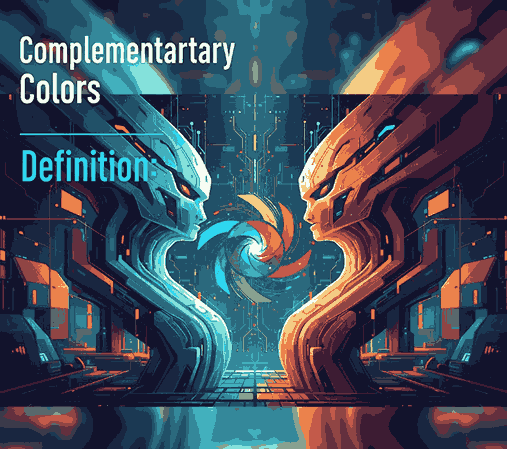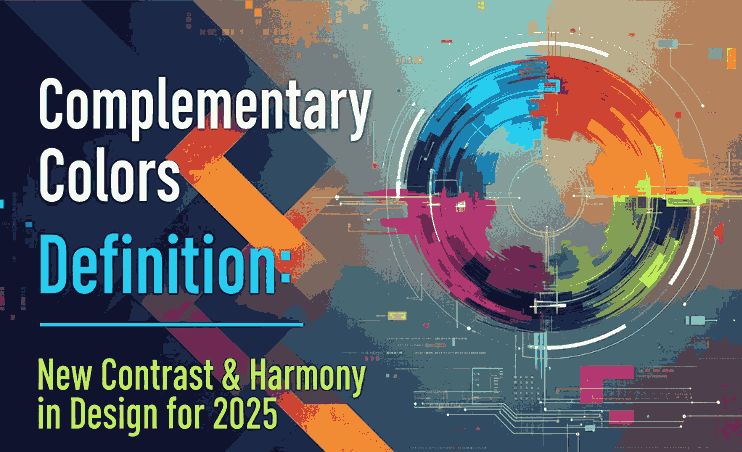
Brand Color Personality: How Colors Shape Your New Brand Identity
1. Introduction: Why Color Isn’t Just Decoration
You’ve probably heard that “colors speak louder than words.” In branding, that’s more than a cliché—it’s a strategic truth. The colors you choose for your brand become a nonverbal language, signaling who you are and what you stand for to your audience. This is at the heart of brand color personality.
For a font business like yours, where visual identity is core, aligning your brand’s personality with color helps your fonts “feel right” in context, attract the right customers, and create stronger brand recall.
2. What Is Brand Color Personality?
Brand color personality refers to the emotional, psychological, and associative traits that a brand’s color palette communicates to the audience. It’s how colors express the “character” of a brand—whether it feels energetic, trustworthy, youthful, sophisticated, earthy, or whimsical.
It is grounded in color psychology, which studies how color influences human emotion, behavior, and perception. In branding, color is a powerful cue—studies show that up to 90% of first impressions can be formed based on color alone.
So choosing colors isn’t just aesthetic; it’s a strategic decision in aligning visual identity with brand values and messaging.
Brand Color Personality
3. How Colors Influence Consumer Perception
Colors influence perception in several interlocking ways:
• Emotional associations: People often unconsciously connect colors with feelings (e.g. blue = calm/trust, red = energy/passion).
• Cultural & contextual meaning: Interpretations of colors differ across cultures, industries, and usage context.
• Recognition & recall: A consistent color palette builds memory linkage—customers start to associate that hue set with your brand.
• Decision-making & behavior: Colors can influence what people pay attention to or how they perceive brand attributes like trust, sophistication, energy, or friendliness.
In short: your color choices help shape how your brand is felt and judged at a glance.
4. Key Color–Personality Associations
While these associations are not universal, here are commonly recognized linkages in branding:
• Blue → Trust, stability, professionalism
• Green → Nature, growth, harmony
• Red → Excitement, urgency, passion
• Yellow / Gold → Optimism, warmth
• Orange → Creativity, friendliness
• Purple → Luxury, imagination, spirituality
• Black / Dark Neutrals → Elegance, sophistication
• White / Light Neutrals → Simplicity, purity
Brands often pair a primary color with neutrals or accent colors to modulate their personality. (E.g. a tech brand might pair blue + gray + neon accent.)
A useful note: color psychology is nuanced and mediated by context, culture, and individual experience. No color guarantees one emotion.
5. Choosing a Your Brand Color Personality
Here’s a framework you can follow:
1. Define your brand values, tone, and target audience
What do you want people to feel when they see your brand? Bold? Warm? Premium? Creative?
2. Map traits to colors
Pick color(s) that best echo those traits. If your brand is “creative + grounded,” you might lean earthy greens + warm neutrals + one accent.
3. Test harmony & contrast
Ensure your palette is usable—text legibility, contrast, color combinations must work in practical use.
4. Consider accent colors
Use accent hues to introduce nuance, highlight, or signal interactive states.
5. Stay consistent
Apply your color personality across all brand assets—logo, website, social media, mockups, packaging.
6. Be flexible to context
Use variations or secondary palettes when needed, but keep primary identity stable.
By anchoring your color decisions in personality and consistency, you build stronger visual identity.
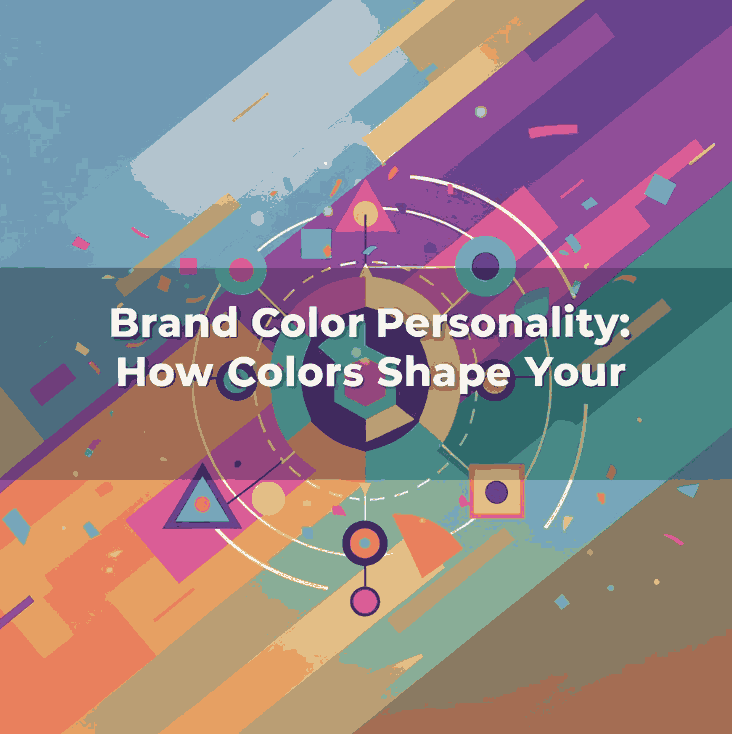
6. Applying Brand Color Personality in Typography & Fonts
As a font designer/seller, your color personality should reflect (or harmonize with) your font style. Here’s how:
• Font sample previews: Display your fonts on backgrounds that reflect your brand’s personality. Use your primary hue in a way that makes the font pop.
• Mockup contexts: If your brand is rugged or bold, use earthy, textured palettes. If elegant or luxury, use dark neutrals or muted tones with accent highlights.
• Font pairing examples: Show how two fonts work together with your brand palette—one in primary color, one in secondary.
• Highlighting special glyphs or alternates: Use accent colors to draw attention to ligatures, alternates, or stylistic sets in demo visuals.
Your font visuals become not just product previews, but expressions of your brand’s color personality.
7. Font Mockup Examples from Your Collection
Here are some fonts in your catalog and how you might incorporate brand color personality in their mockups:
• Rustte Font — Use warm rust, burnt orange, deep brown or olive tones to emphasize the rugged, expressive character of the font.
• Holdsmith — Pair dark neutral or charcoal backgrounds with a bold accent (e.g. muted gold) to present a dignified and timeless personality.
• Jungle Tribe Font — Use natural greens, earthy browns, and subtle accent colors (like warm ochre) to evoke jungle or organic brand themes.
• Charima Sharene Font — Elegant, script‐style font might be showcased over soft pastels or muted jewel tones with metallic accents for a more premium aesthetic.
Make sure your mockups align visually with the personality your brand wants to communicate—don’t just randomly use colors.
8. Pitfalls & Cultural Considerations
• Overgeneralizing color meaning: Color associations differ across cultures and individuals. What is soothing in one region may feel dull in another.
• Ignoring contrast & legibility: Even the best palette fails if text is unreadable.
• Trend chasing: Don’t change color personality too often just to follow trends; consistency builds recognition.
• Clashing personalities: Be careful with secondary or accent hues—they shouldn’t muddy your core identity.
• Assuming universal responses: Personal and cultural differences mediate how color is perceived.
Always test your color choices with your target audience.
9. Tips to Test & Validate Your Brand Color Personality
• A/B testing: Present variations of mockups to small audience and see which palette gets better response.
• Surveys / Feedback: Ask people what emotions or traits they perceive from your color choices.
• Brand persona tests: Show your brand visuals (with colors) and ask participants to pick adjectives (e.g. “trusted,” “creative,” “bold”).
• Contrast & accessibility tools: Use contrast checkers to ensure color combinations comply with readability standards.
• Longitudinal consistency: Evaluate if the palette still feels appropriate as your brand grows or evolves across media.
Validation is key—color personality isn’t just what you like; it’s how your audience receives it.
10. Conclusion & Call to Action
Your brand color personality is a powerful tool: it communicates unspoken values, shapes emotional perception, and gives your brand a visual voice. For a font business, strong alignment between the style of your typefaces and your brand’s color persona is a competitive edge.
Next step: Choose one or two adjectives (e.g. “bold & grounded,” “elegant & creative”) and build a minimal palette (primary + accent + neutrals). Apply that palette across one font mockup and test audience reaction.
References
• HubSpot — “Color Psychology: How To Use it in Marketing and Branding”
• HelpScout — “Color Psychology in Marketing & Branding: Will It Always Work?”
• BrandVM — “Brand Color Psychology: How Hues Influence Emotions and Behavior”
• Insights in Marketing — “The Power of Color in Branding and Marketing”
Posted on
Analogous Colors Definition & How to Use Them in New Design
Analogous Colors Definition
Table of Contents
1. Introduction
2. What Is the Analogous Colors Definition?
3. Why Analogous Schemes Create Visual Harmony
4. Common Analogous Color Combinations & Examples
5. Best Practices: Using Analogous Colors in Design
6. Applying Analogous Palettes in Typography & Mockups
7. Font Mockup Examples from Your Collection
8. Tools & Tips to Create & Test Analogous Palettes
9. Pitfalls to Avoid
10. Conclusion & Next Steps
11. References
1. Introduction
Color is one of the foundational building blocks of design. How you pick and combine hues determines mood, readability, cohesion, and emotional impact. Among the many color harmony techniques, Analogous Colors Definition schemes stand out for their subtle beauty and natural feel.
In this article, we’ll explore the Analogous Colors Definition, show you examples, and reveal how to use them effectively—especially in your font mockups, branding visuals, and creative assets.
2. What Is the Analogous Colors Definition?
The analogous colors definition refers to a set of colors that are adjacent to each other on the color wheel. In most applications, an analogous scheme consists of three hues: a base (dominant) color, and one or two supporting (neighbor) colors.
These neighboring hues share similar undertones, which gives analogous palettes a smooth, harmonious, and unified appearance—unlike complementary schemes, which emphasize high contrast.
For example:
• Blue, blue-green, and green
• Red, red-orange, and orange
• Yellow, yellow-green, and green
In digital design, you can tweak saturation, brightness, or tone of these colors to achieve more depth and contrast.
Analogous Colors Definition
3. Why Analogous Schemes Create Visual Harmony
Analogous color schemes are praised for several reasons:
• Low visual tension: Because the colors are similar in hue, they don’t “fight” each other. This makes them soothing to the eye.
• Natural occurrences: You often see analogous schemes in nature (sunsets, foliage gradients), which makes them feel organic.
• Cohesion & unity: They produce a unified look—great for backgrounds, branding, or layouts that shouldn’t feel busy.
• Flexibility with contrast: Even though they are close in hue, you can achieve contrast by varying brightness, saturation, or applying neutrals (white, gray, black).
Because analogous schemes are more subtle than contrasting ones, they are often chosen when the goal is elegance, calmness, or aesthetic continuity.
4. Common Analogous Color Combinations & Examples
Here are typical triads of analogous hues you can experiment with:
• Red → Red-Orange → Orange
• Yellow → Yellow-Green → Green
• Blue → Blue-Green → Green
• Blue → Blue-Violet → Violet
• Purple → Red-Violet → Red
Some designers extend schemes to 4 or 5 hues (neighboring spanning a small arc) as long as they remain adjacent without jumping across the wheel edges.
In interior design, for example, designers often use the 60 / 30 / 10 rule: 60% dominant color, 30% secondary analogous color, and 10% accent (which can be a more muted version).
5. Best Practices: Using Analogous Colors Definition in Design
To make analogous palettes work well, follow these tips:
• Choose a dominant hue: Use one color for the bulk of your design (backgrounds, large shapes).
• Support and accent: Use the neighboring colors more sparingly — for accents, buttons, borders, or decorative elements.
• Vary lightness and saturation: Don’t use pure colors only — lighten or darken, desaturate to create depth.
• Introduce neutral tones: Gray, off-white, black or very desaturated versions help give rest to the eyes and avoid monotony.
• Mind contrast for usability: In UI or text design, make sure text is legible across these similar hues — sometimes you’ll need a complementary hue or neutral color to ensure readability.
• Limit the range: Spread out too far along the wheel and you risk moving away from harmony. Keep the span narrow.
Analogous palettes are ideal when you want aesthetic smoothness rather than stark contrast.
6. Applying Analogous Colors Definition Palettes in Typography & Mockups
For a font/design business, applying analogous schemes can elevate mockups and branding visuals:
• Use analogous hues for background → secondary shapes → highlight text layer.
• For text overlays: Use one analogous color for fill, another (slightly darker or lighter) for subtle shadow or outline.
• In UI or product previews: Use analogous tones in button states, hover effects, or navigation bars for consistency.
• Combine analogous palettes with neutral typography (black, white) to maintain readability and grounding.
Because fonts and type are the focal point, using analogous color schemes gives them an elegant frame rather than overwhelming them.
Analogous Colors Definition
7. Font Mockup Examples from Your Collection
Here are fonts from your collection and some mockup ideas using analogous color schemes:
• Classicly Font — Try a calm palette: soft blue, blue-green, and green. Use Classicly for headers and lighter variants for subtext.
• Creatoria Font — Use warm analogous hues: peach, pink-peach, coral for creative branding visuals.
• Ballerinas — Elegant pastel analogous colors such as lavender, violet, and blue-violet for feminine or graceful designs.
• Overcame Font — Use bold analogous palette like orange, red-orange, and red to produce dramatic typographic compositions.
In each mockup, emphasize the dominant hue in backgrounds, the secondary in accents or decorative elements, and the third for smaller highlights. Show how the font remains legible but stylish within the analogous frame.
8. Tools & Tips to Create & Test Analogous Colors Definition Palettes
Here are useful tools and practices:
• Adobe Color Wheel — switch to “Analogous” mode to generate triads.
• Coolors.co — lock a hue and get adjacent ones.
• Paletton — interactive color wheel with analogous scheme support.
• Contrast checkers — ensure text vs background from your analogous palette remains legible.
• Preview in context — test your palette on web pages or within your font mockups rather than in isolation.
Trial and iteration are key: you’ll often need to adjust brightness or saturation to make the palette work.
9. Pitfalls to Avoid
While analogous schemes are lovely, there are risks:
• Too much monotony: All colors too similar can look flat.
• Poor contrast: Text or UI elements may become unreadable if adjacent hues are too close.
• Overusing full saturation: Pure colors next to each other can make your design look harsh or garish.
• Ignoring neutral elements: Without blacks/whites/grays, the scheme may lack grounding.
• Spanning too wide: If your analogous span covers too many hues, it starts to drift into other schemes and loses harmony.
By anticipating these challenges, you can better manage your palette choices.
10. Conclusion & Next Steps Analogous Colors Definition
The analogous colors definition is simple: hues next to each other on the color wheel, often used in sets of three. What makes them powerful is their ability to deliver harmony, subtlety, and visual cohesion.
For your font and design business, analogous palettes can enliven mockups, showcase your fonts in context, and provide mood without overwhelming contrast. Pair them with good typographic contrast and neutral grounding for the best results.
Next step: Pick a base hue from your branding or a font you want to spotlight. Use a tool to generate its adjacent analogous colors. Create a mockup with those three colors using one of your fonts and see how it feels. Iterate until it feels elegant and readable.
Kalau kamu mau, saya bisa bantu buat preset analogous color palettes (with hex values) khusus untuk font moods (elegant, bold, pastel) + file swatches yang bisa langsung kamu pakai. Mau saya kirim itu?
References
• Pixflow — “What Is an Analogous Color Scheme? Definition, Examples & Uses”
• Figma Dictionary — “Analogous Colors Definition & Examples”
• Art in Context — “What Are Analogous Colors in Color Theory”
• Creatopy — “What are analogous colors in graphic design”
Posted on
Complementary Colors Definition: New Contrast & Harmony in Design for 2025
Complementary Colors Definition
Table of Contents
1. Introduction
2. What Is the Definition of Complementary Colors?
3. Why Complementary Colors Work — Visual & Psychological Effects
4. Common Complementary Color Pairs (Examples)
5. How to Use Complementary Colors in Your Design
6. Applying Complementary Pairs in Typography & Font Mockups
7. Font Mockup Ideas with Your Fonts
8. Tools & Tips to Test Complementary Palettes
9. Pitfalls to Avoid
10. Conclusion & Call to Action
11. References
1. Introduction
Color is one of the most essential tools in Complementary Colors Definition. How you combine colors can make a design feel harmonious or jarring, boring or vibrant. One of the foundational strategies in color theory is complementary colors. Understanding the Complementary Colors Definition—and how to use them skillfully—can instantly elevate your visual designs, including font demonstrations, branding, and marketing visuals.
In this article, we’ll explore the definition of complementary colors, why they are so powerful, practical examples, and how you can apply them in typography mockups and your font portfolio.
2. What Is the Definition of Complementary Colors?
By definition, complementary colors are pairs of colors that sit directly opposite each other on the color wheel.
Because they are opposites, these pairs generate strong contrast when placed side by side. This contrast is key to what makes complementary combinations so visually compelling.
In traditional art (RYB model), some classic complementary pairs are:
• Red ↔ Green
• Blue ↔ Orange
• Yellow ↔ Purple
However, in digital and modern color models (RGB, CMYK), complementary pairs may shift—for example, red ↔ cyan, green ↔ magenta, blue ↔ yellow.
Complementary Colors Definition
3. Why Complementary Colors Definition Work — Visual & Psychological Effects
Visual Contrast & Enhancement
When complementary colors are adjacent, they make each other appear more vivid through a phenomenon known as simultaneous contrast.
In essence, placing two opposite hues together intensifies their brightness and visual presence, which is very useful for highlighting focal elements in a design.
Emotional & Psychological Impact
Complementary colors often combine a warm hue (e.g. red, orange, yellow) with a cool hue (e.g. blue, green, purple). This warm-cool tension resonates with human perception, creating emotional interest.
Used thoughtfully, complementary schemes can convey energy, drama, or clarity—depending on the two hues and their intensities.
4. Common Complementary Color Pairs (Examples)
Here are some widely used complementary pairs that you’ll see across design, branding, art, and media:
• Red ↔ Green
• Blue ↔ Orange
• Yellow ↔ Purple
• Red-Orange ↔ Blue-Green
• Yellow-Orange ↔ Blue-Violet
• Yellow-Green ↔ Purple-Red
A very popular cinematic example is teal and orange—this pair is used in films and movie posters because it delivers strong contrast and skin tones often fall into the orange spectrum.
These pairs are foundational, but what truly matters is how you use tints, shades, and saturation to adapt them for your design.
5. How to Use Complementary Colors Definition in Your Design
Complementary colors are powerful, but they must be handled with care to prevent visual overload. Here are best practices:
1. Use One Dominant, One Accent
Designers often let one color dominate (e.g. 70%) and use the complementary color sparingly for accent or call-to-action elements.
2. Soften One Hue
If two pure complements are too harsh, consider desaturating or lightening one to reduce strain on the eyes.
3. Use Neutrals
Introduce whites, grays, or blacks to buffer the contrast. This helps maintain an overall balanced composition.
4. Apply Contrast for Legibility
Complementary pairs are excellent for readable typography when one color is used for background and the other for text, as long as contrast is sufficient.
5. Use Variations
Don’t stick to pure complements only—use adjacent shades or variations so the pair feels more natural and less rigid.
6. Applying Complementary Colors Definition Pairs in Typography & Font Mockups
When working with fonts, complementary color schemes can help your typeface stand out while looking polished. Here’s how:
• Headline & background pairing: e.g. use navy blue text on a soft orange background.
• Accent letterforms or ornaments: Use complementary color for swashes, flourishes, or decorative details.
• Interactive states: Use the complementary color for hover states, shadow layers, or outlines.
• Layered typography: Use a faint layer of complementary color behind text (offset shadow) to create a subtle glow or halo effect.
Because your fonts are the hero of your branding, combining them with complementary colors gives visual punch without swamping the type.
7. Font Mockup Ideas with Your Fonts
Here are specific fonts from your collection and ways you can apply complementary color schemes in mockups:
• Westerners Font — Use a burnt orange ↔ teal pair: Westerners in teal on burnt orange background, with accent details in modified orange tones.
• Senjalara Calligraphy Font — Pair soft lavender (purple) text with pale green backgrounds, use green for decorative elements.
• Ameralda Font — Use warm coral for Ameralda text and a muted turquoise as the complementary backdrop or shadows.
Such mockups show clients not just the font shape, but how it performs in real design context using foundational color theory.
8. Tools & Tips to Test Complementary Colors Definition Palettes
To experiment and validate color choices, these tools and tips help:
• Adobe Color Wheel — Generate complementary pairs instantly.
• Coolors.co — Lock one hue and see its complement variants.
• Paletton — Explore complementary harmony modes.
• Design software preview — Always preview your palette in situ (with text, images) before final use.
• Contrast checkers — Tools like WebAIM contrast checker ensure your text is legible when using complementary backgrounds.
Complementary Colors Definition
These help you refine, test, and ensure your complementary color use is both bold and usable.
9. Pitfalls to Avoid Complementary Colors Definition
Complementary colors are strong, so avoid these common design missteps:
• Overusing both colors equally → results in visual tension.
• Using pure 100% saturation for both → may cause strain or look garish.
• Poor contrast in text → complementary doesn’t always mean readable.
• Ignoring color context → lighting, screen calibration, or nearby hues shift perception.
• Not testing on different mediums → print, web, or mobile may render colors differently.
By being mindful, you can harness the strength of complementarity without tipping into chaos.
10. Conclusion & Call to Action Complementary Colors Definition
The complementary colors definition is simple: hues opposite each other on the color wheel that enhance contrast and vibrancy. But in practice, using them well is an art.
When expertly applied, complementary color pairs offer designers a powerful tool to draw attention, convey emotions, and make typography sing. Pair your page elements and font mockups with complementary palettes to give them visual clarity and dynamic energy.